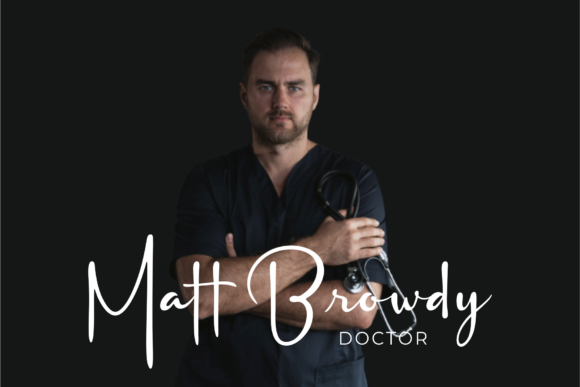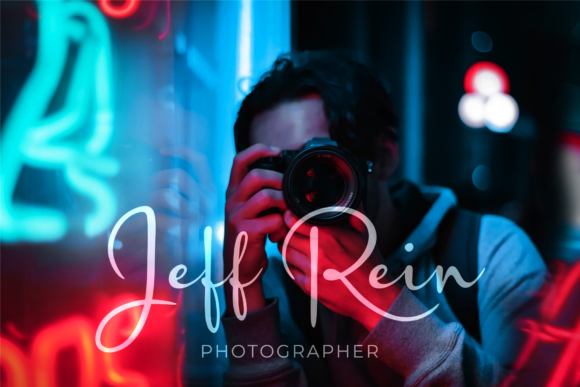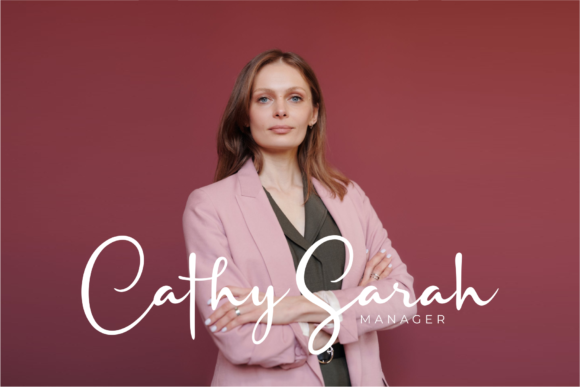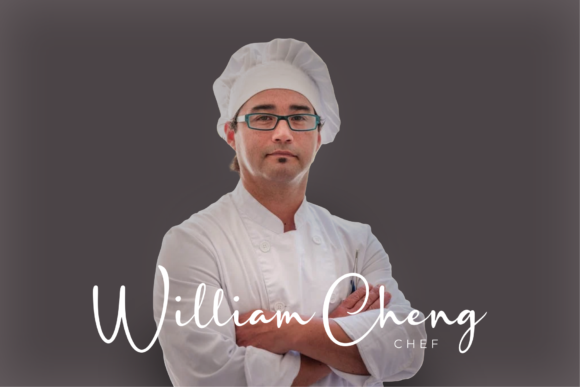
About Heartway Font
Heartway is a lovely and timeless handwritten font. It is the best choice for creating eye catching logos, branding and quotes. Every letter has a unique and beautiful touch, which will make your design come alive! This font is PUA encoded which means you can access all of the glyphs and swashes with ease!